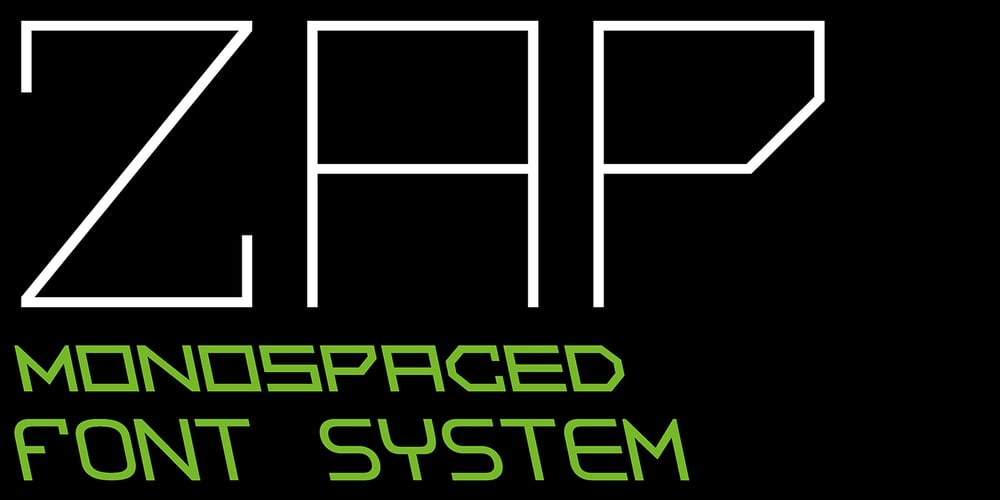
ZAP font
ZAP Font Family was designed by Ekke Wolf and published by Wannatype. ZAP contains 96 styles and family package options. ZAP is an all-caps monospaced and (almost) monolined typeface family. ZAP comes along in square and round shape, 2 widths (ZAP 360 and ZAP 500), and 8 weights. ZAP also offers Slant and BAckslant styles. ZAP covers multiple languages with Extended Latin. Even complete Greek alphabets are part of the ZAP keymap.